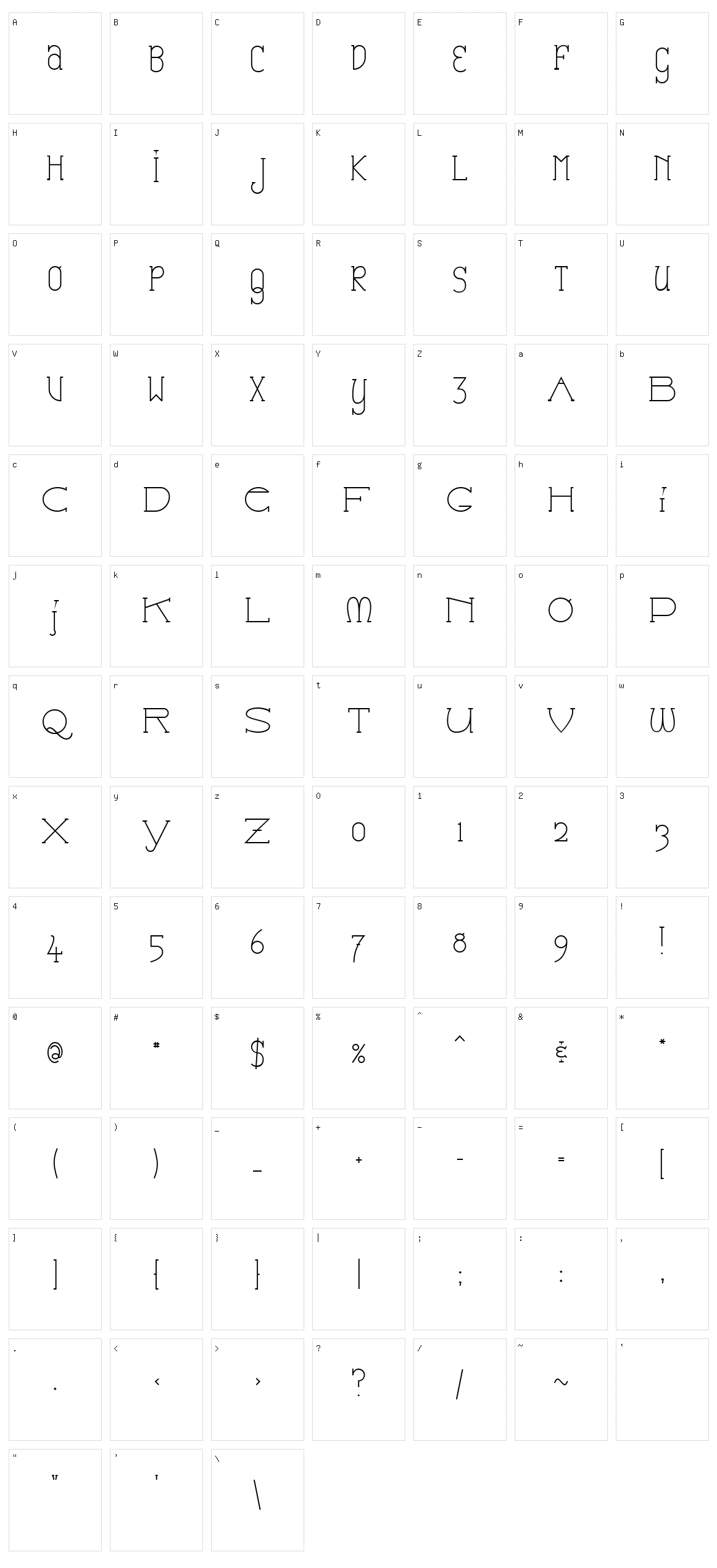
Catharsis Espresso
Designed by: Christian Thalmann
Category: Various & Gothic
This font is aimed at coffee bars and the likes, hence the name. It
offers a range of ligatures; use a keyboard tool to find them all.
Unlike its sister font Catharsis Macchiato, it contains no lowercase
characters, but instead offers most characters in narrow and extrawide
versions, as well as a few alternative shapes.